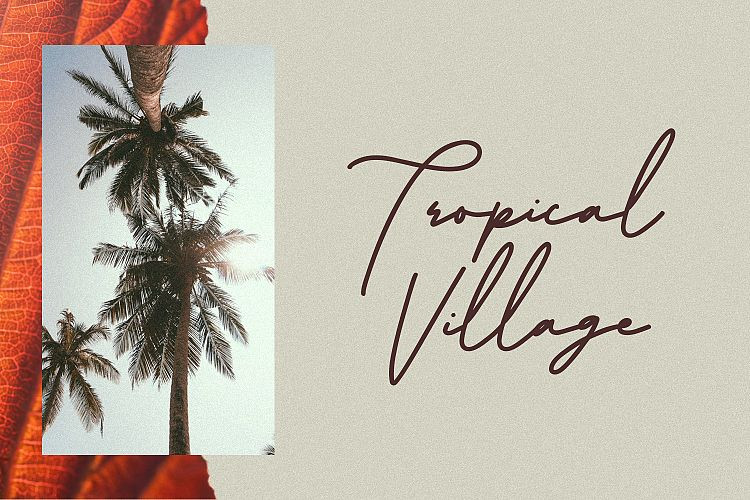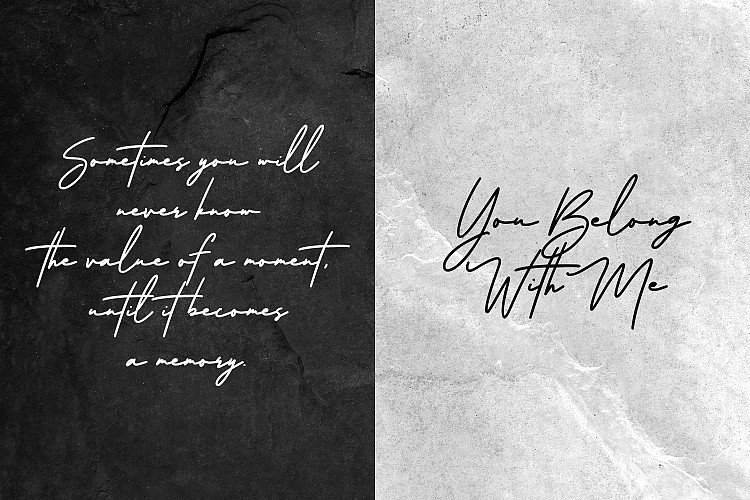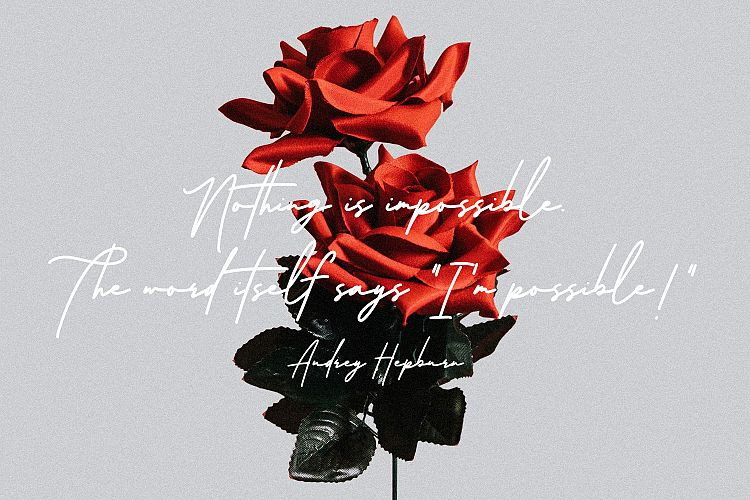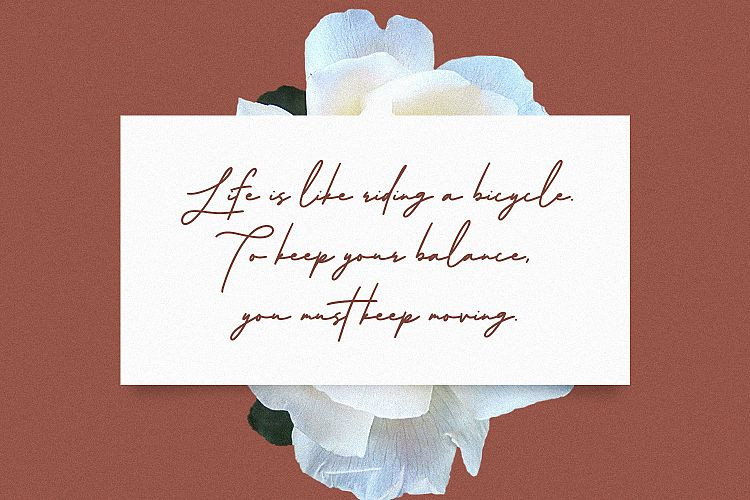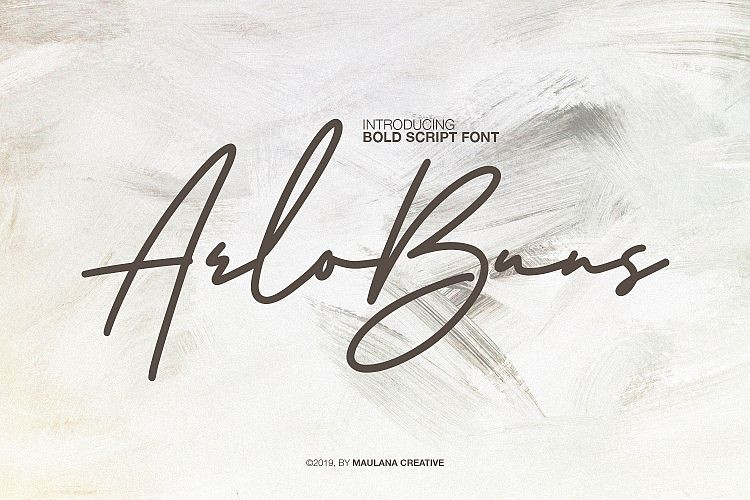
Arlobuns Signature Font is a sweet script girly font with a real handwritten feel. Modern, yet feminine and romantic, and easy to read. It is design and shared by Maulana Creative. Give your designs an authentic handcrafted feel. “Arlobuns Signature” is perfectly suited to signature, stationery, logo, typography quotes, magazine or book cover, website header, clothing, branding, packaging design and more.